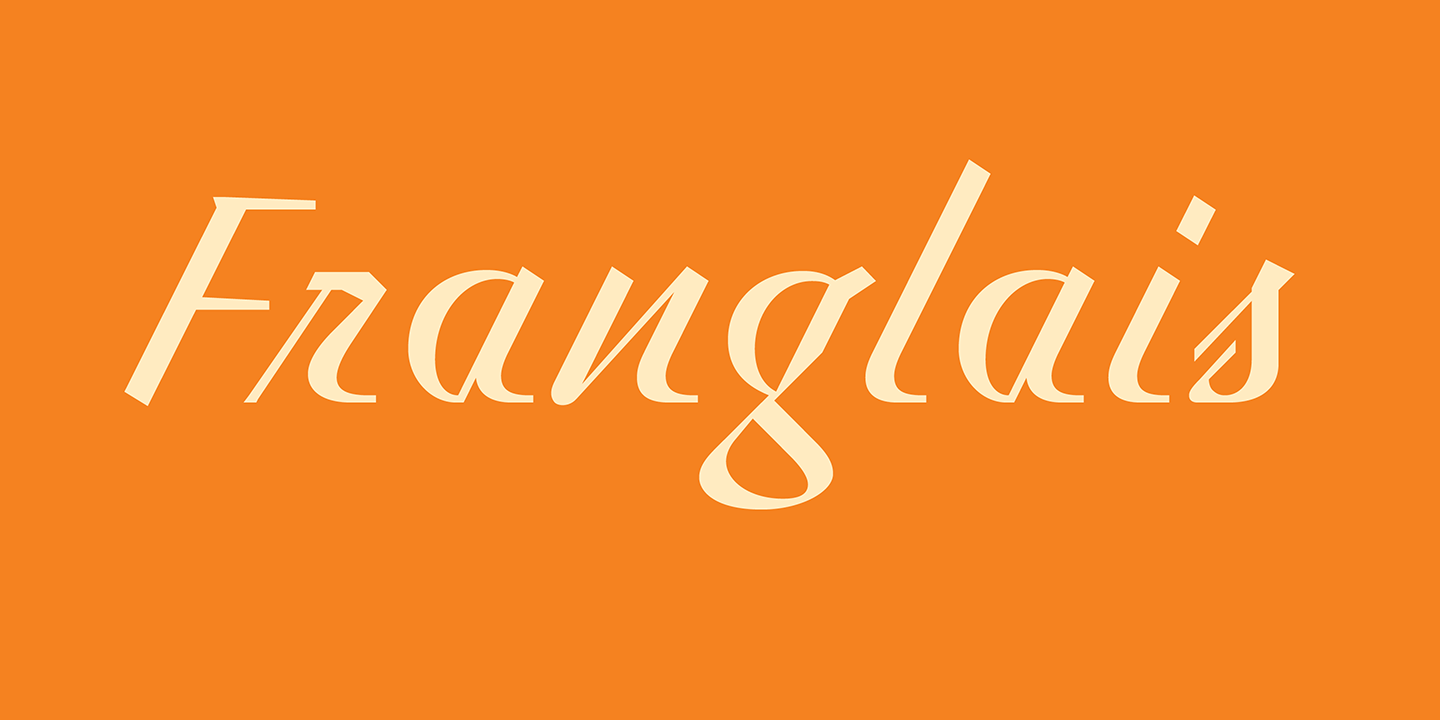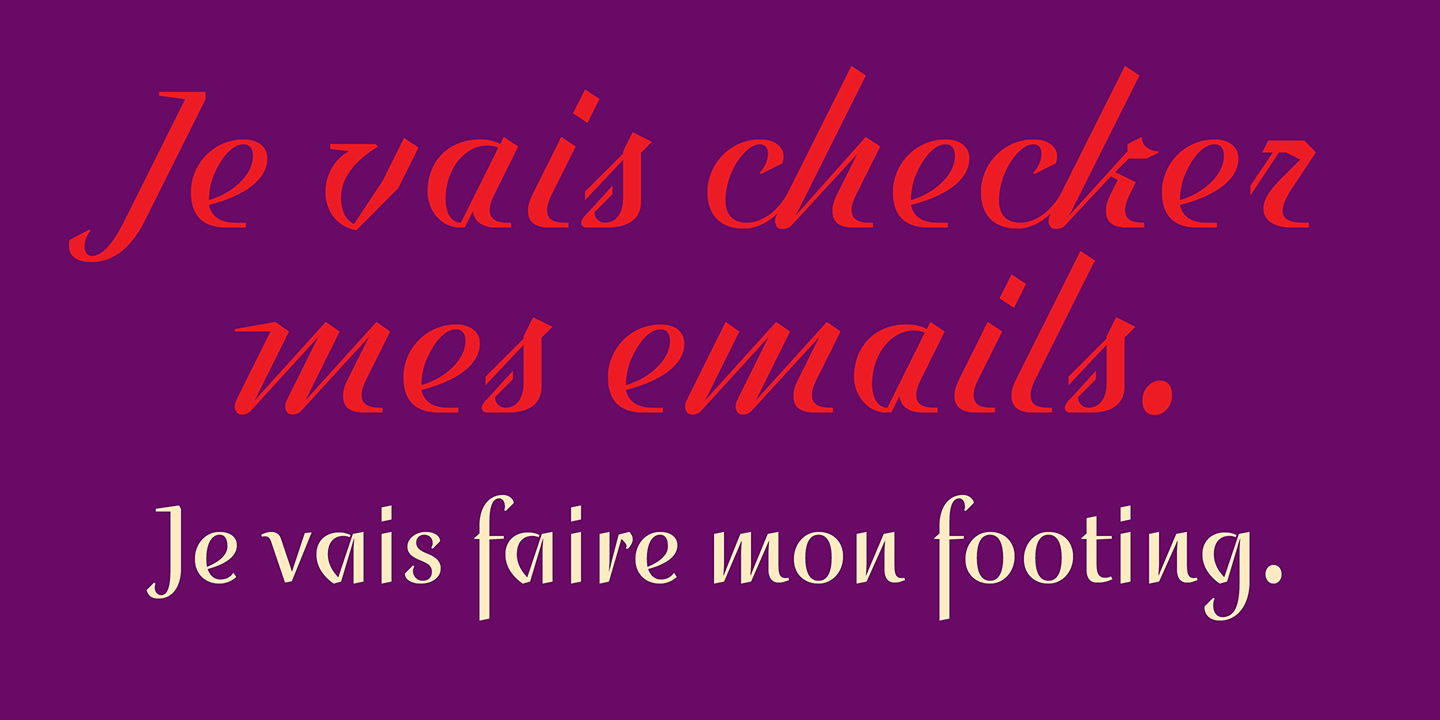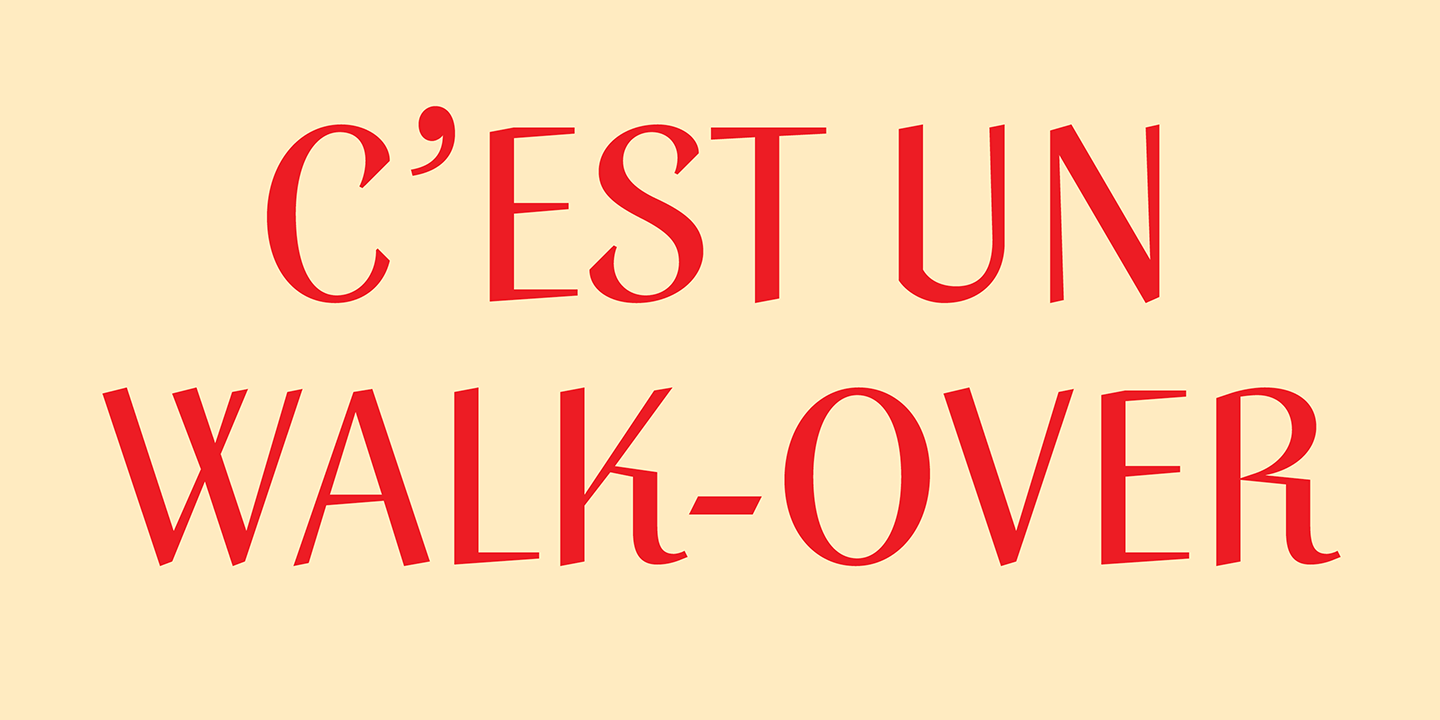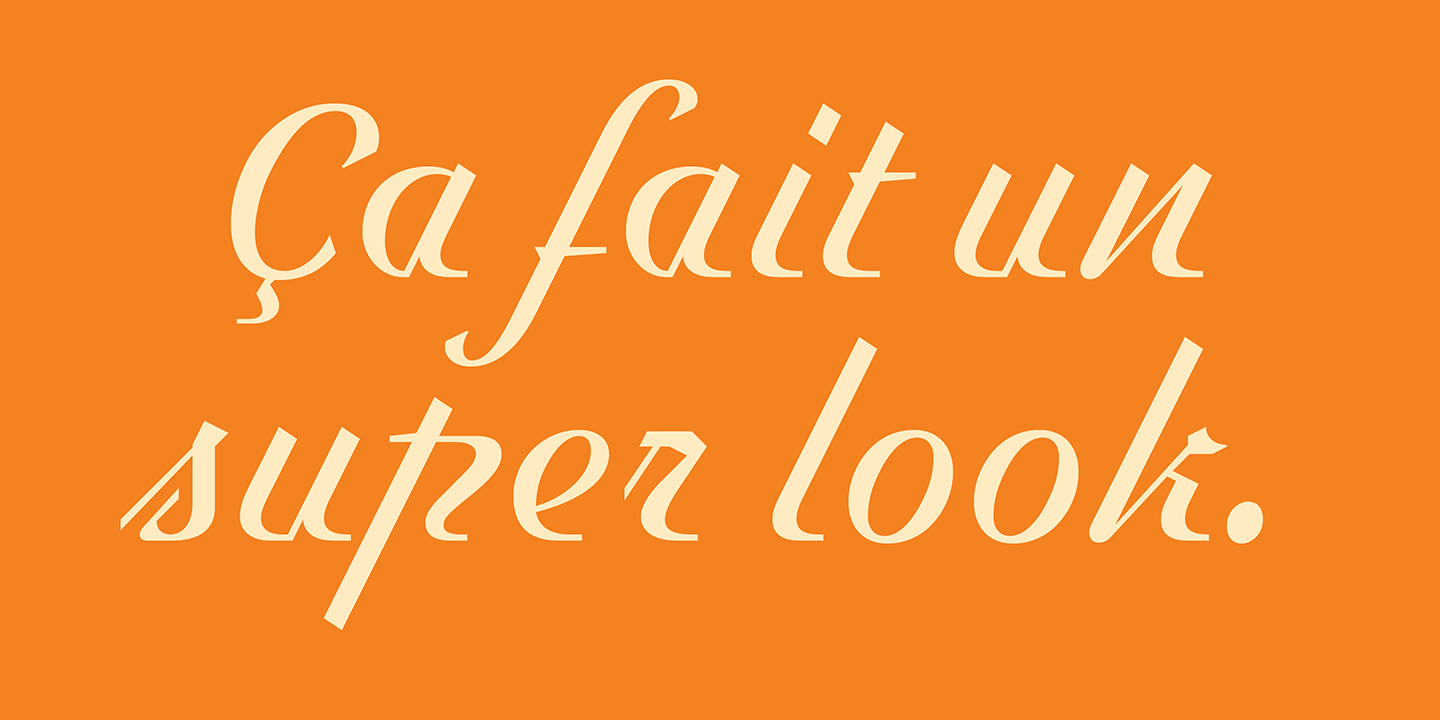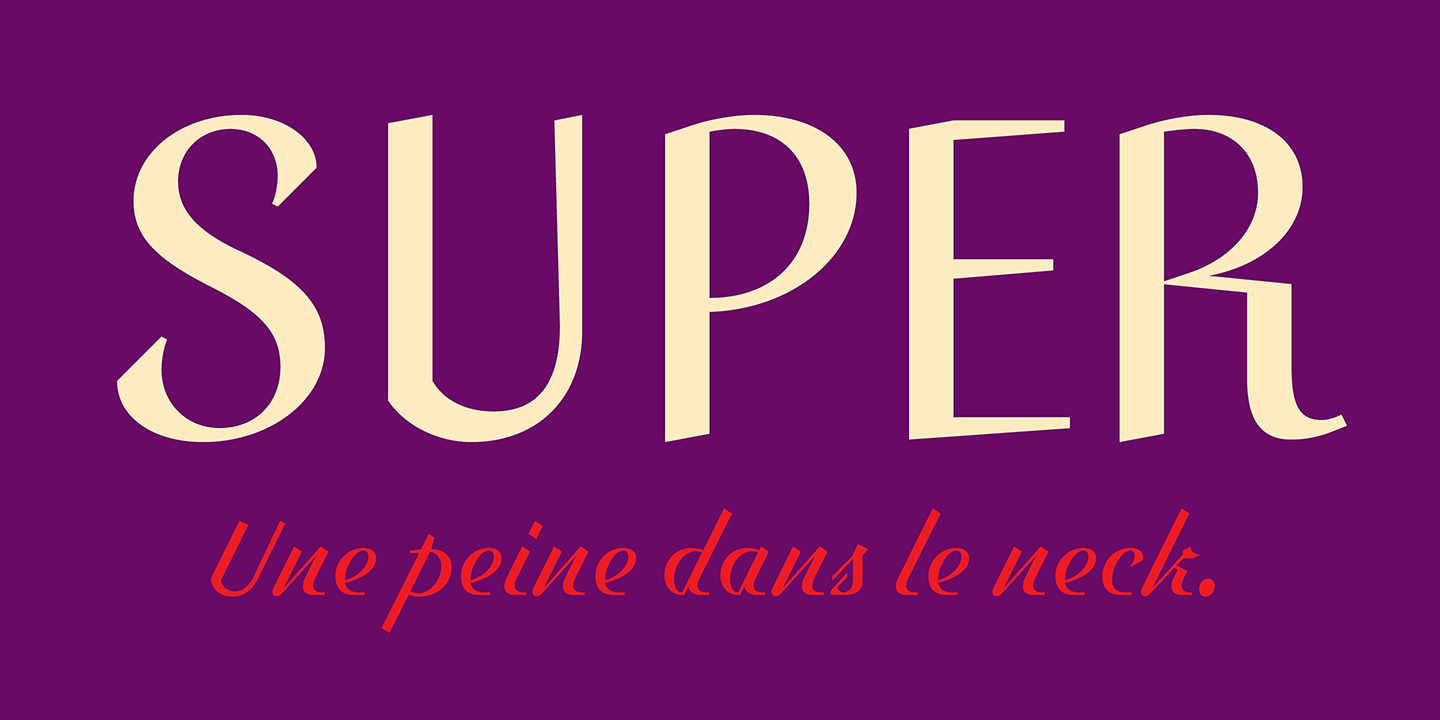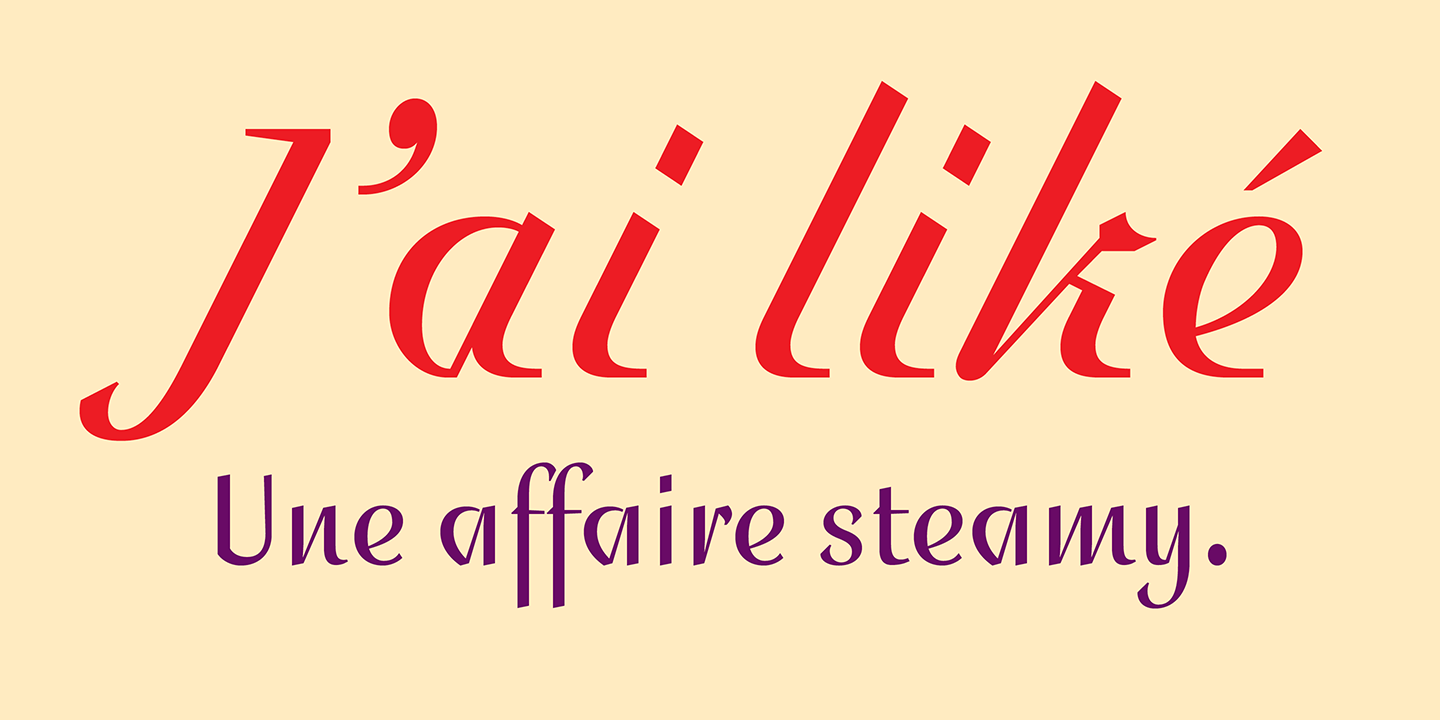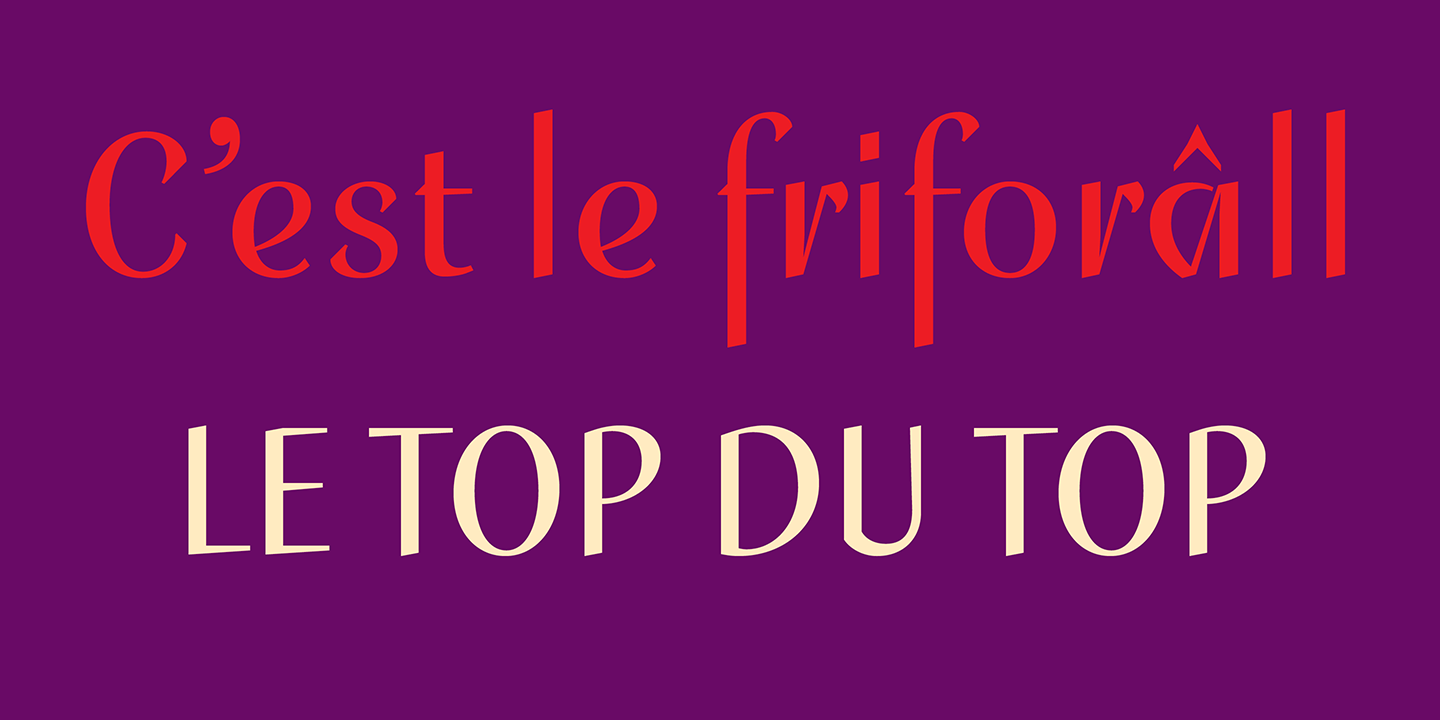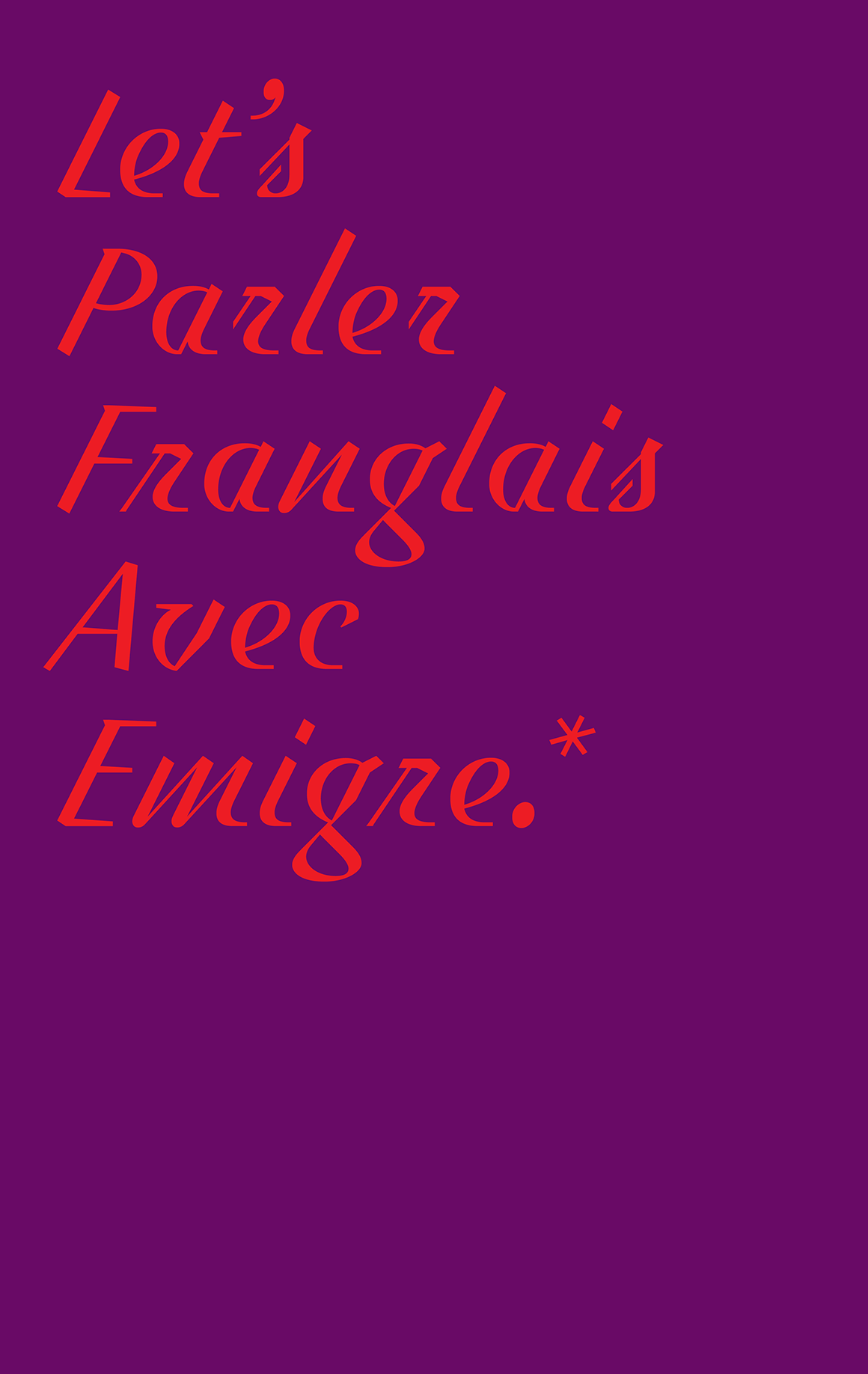
Franglais
Franglais was designed by John Downer in sporadic bursts of inspiration dating back to 2000. It was originally conceived as a standalone italic, and expanded to include two upright companions, Roman and Informal, developed in collaboration with Zuzana Licko.
Reflecting on the origins of Franglais, Downer describes it as lettering devised for imaginary signage inspired by a hybrid of postwar metal type and vernacular chalk-written menu boards. Elements of "ruler writing"—in which a ruler is used to keep the baseline straight across repeated lines—are evident throughout.
Integral to Franglais is a deliberate constructional idea: an italic whose slant suggests rotation rather than mechanical skewing. This approach gives the letterforms a sense of physical motion and handmade vitality. The concept draws on a rich tradition of brush lettering and sign painting—territory in which John Downer, a master lettering artist, is entirely at home.
While Franglais firmly inhabits a post–World War II visual landscape, it resists being purely French in character. Instead, it embraces a knowingly impure blend of French and Anglo-American signage conventions, complete with their cultural contradictions and visual humor.
Downer has likened Franglais to the lettering one might have encountered in Paris shortly after the city's liberation in 1944, when American influence began subtly—and not always delicately—to seep into French visual and linguistic culture.
Whether admired for its historical resonance or its playful irreverence, Franglais occupies a space that is both referential and refreshingly out of step with contemporary typographic trends. Its lineage aligns more closely with the expressive, idea-driven sensibility of the Ludlow Typograph Company under R. Hunter Middleton than with the prevailing aesthetics of recent digital type design.